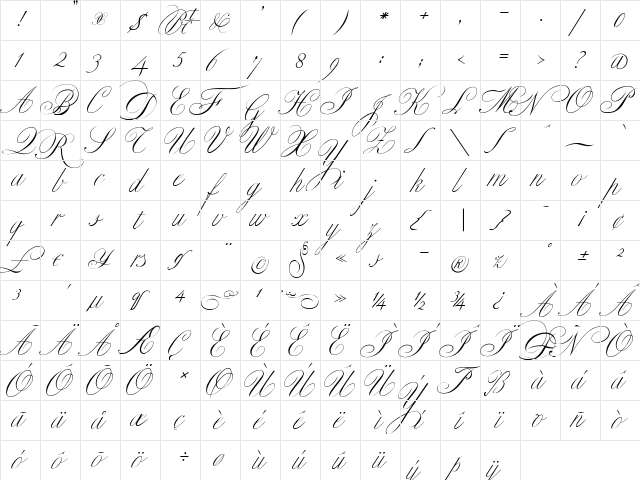
Classica One Regular
Design Context for Classica One Typeface
Classica One has the warm character of retro typography — evoking diners, record sleeves, and the golden age of print advertising.
Font Pairing: Combine Classica One with a simple slab or neutral sans — period-accurate companions reinforce the vintage feel without competing for attention.
Pro Tip: Use Classica One for headlines and pull quotes rather than body copy — its personality is best appreciated in short, focused bursts.